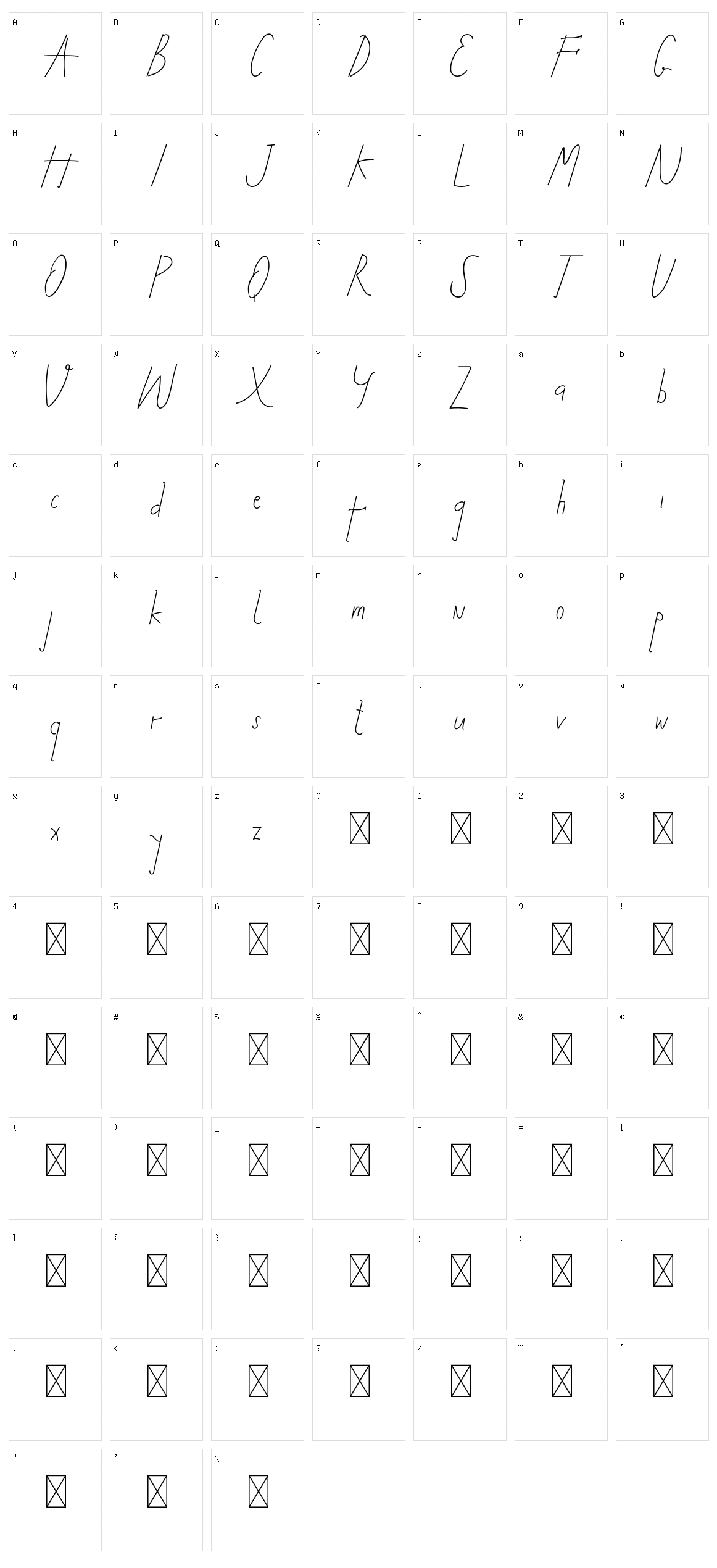
The free font Machaela is carefully designed by Edric Studio, showcasing a thoughtful balance of creativity and usability and falls under the Script font style. When you download the ZIP file, it contains only 10 KB of font files, making it lightweight and quick to download. Please review the license details below to understand permitted usage and distribution rights. If license information is not available, we recommend using this font for personal projects only or contacting the author directly for commercial usage permissions.